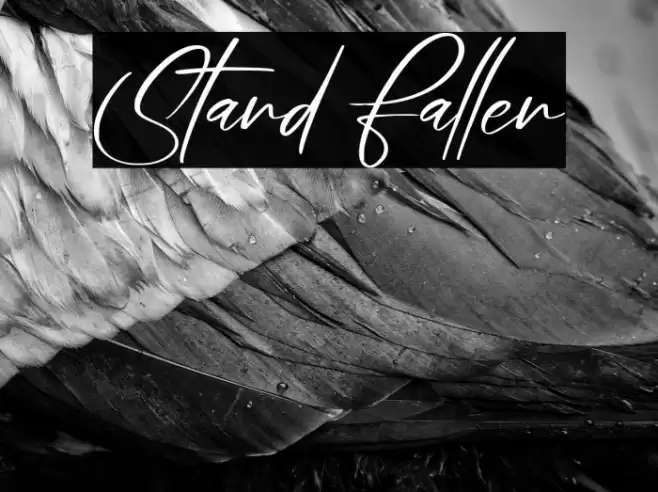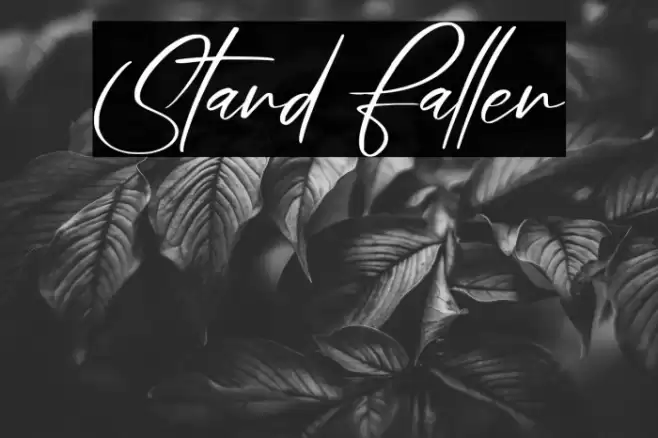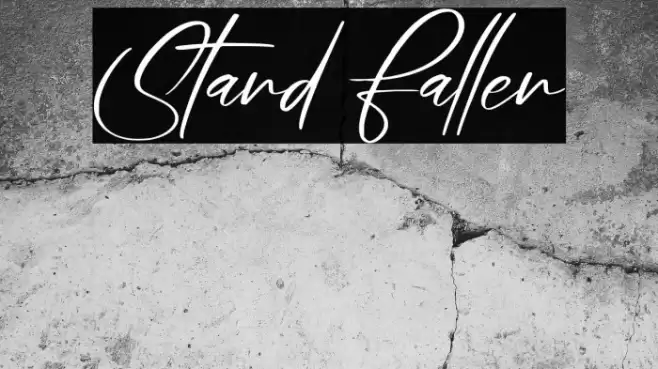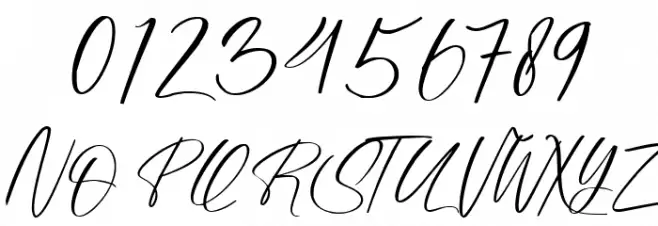
Stand Fallen Font
Stand Fallen Description
This font features an elegant, flowing script style that mimics natural handwriting with a modern twist. The letters are interconnected, creating a seamless and fluid appearance. The strokes are thin and delicate, with a slight variation in thickness that adds a touch of sophistication. The uppercase letters are tall and graceful, while the lowercase letters maintain a consistent baseline, enhancing readability. The numerals are distinct and maintain the same fluid style, ensuring they blend well with the alphabet characters. Special characters are designed to match the overall aesthetic, making this font versatile for various uses.
A modern, elegant script font with fluid, interconnected strokes from Regular fonts.
- Proposed Projects: Ideal for wedding invitations, branding, personal signatures, and elegant stationery.
- Use Case: Logos, Invitations, Personal Signatures